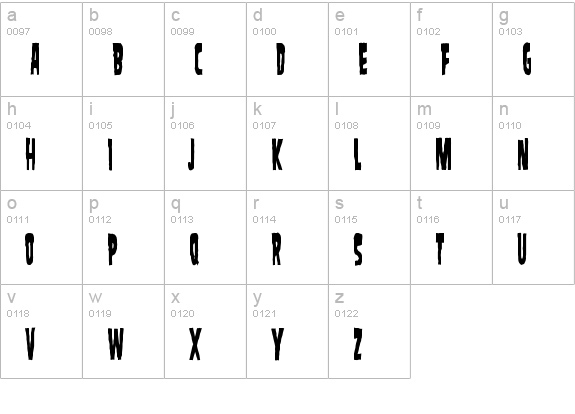
SamdanEvilCondensed Font Details
SamdanEvilCondensed is a captivating and bold font that exudes a mischievous and sinister vibe. With its condensed and sharp letterforms, this typeface is perfect for creating eye-catching and attention-grabbing designs. Whether you are working on a poster, logo, or website, SamdanEvilCondensed will add a touch of edginess and intrigue to your project. What makes SamdanEvilCondensed even more enticing is that it is available for free download at FontsMarket.com. This means that you can easily access and use this font without any cost or hassle. With just a few clicks, you can enhance your designs with the unique and menacing character of SamdanEvilCondensed. The versatility of SamdanEvilCondensed allows it to be used in a variety of contexts. Its condensed nature is particularly useful when you need to fit a large amount of text within a limited space without sacrificing legibility. Moreover, the sharp and angular letterforms of this font make it an excellent choice for projects that require a bold and intimidating aesthetic. Whether you are designing a horror movie poster, a Halloween-themed event flyer, or a spooky website, SamdanEvilCondensed will make a statement and leave a lasting impression on your audience. Its distinctive style and chilling aura will undoubtedly draw attention and set your design apart from the rest. Don't miss out on the opportunity to use SamdanEvilCondensed in your next project. Head over to FontsMarket.com and take advantage of the free download. With this font at your disposal, you can effortlessly create designs that are wickedly captivating and evoke a sense of dark allure. Let SamdanEvilCondensed unleash your creativity and add a touch of sinister charm to your designs.